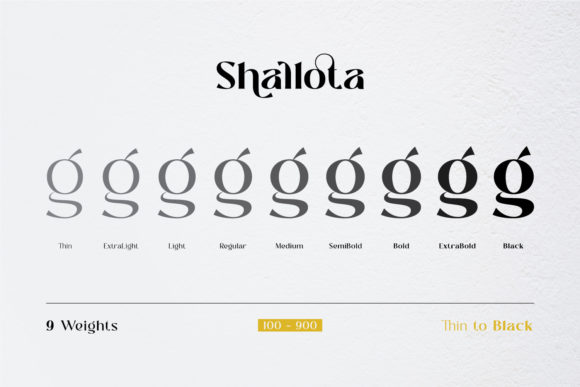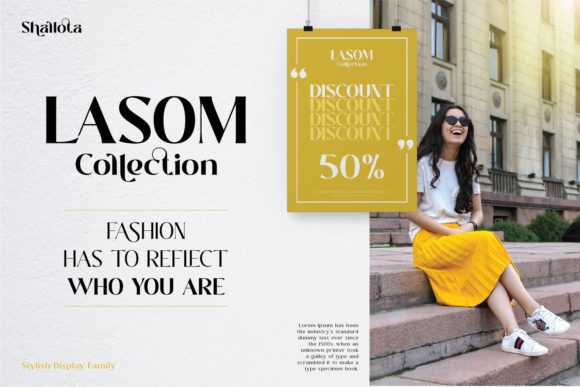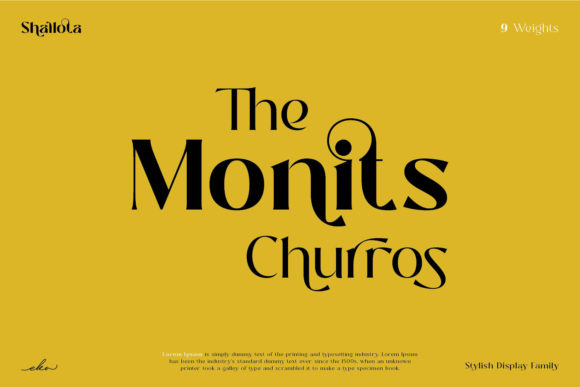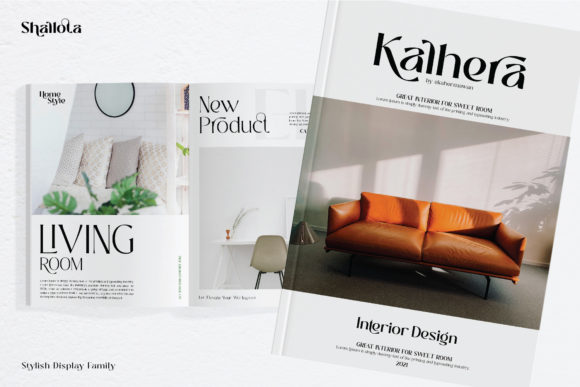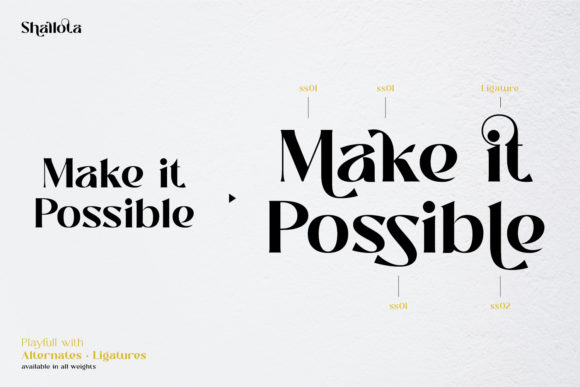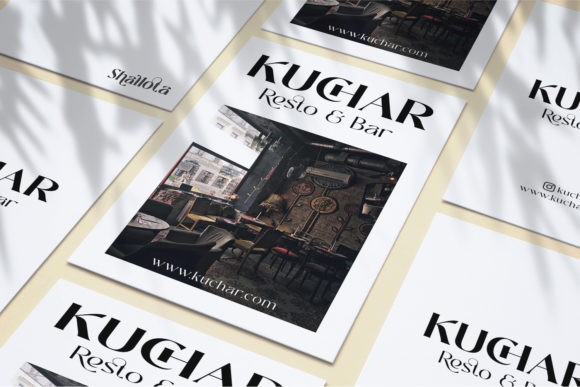
Introduction to Shallota Font
Have you ever been working on a creative project, pouring your heart and soul into it, only to feel like something’s missing? A key element that brings it all together? For designers, finding that perfect font can be the difference between a good design and a great one. And that’s exactly what we’re excited to introduce you to – the Shallota Font.
This elegant, bold, and stylish display font is perfect for fashion branding or editorial designs, offering a smooth vibe that’s sure to captivate your audience. With its high-quality design and transparent background, it’s an ideal design resource for any creative project. The best part? Shallota Font is PUA encoded, making it easy to access all of the glyphs and swashes you need to take your design to the next level.
Key Features of Shallota Font
- High-quality design resource perfect for creative projects with a modern and elegant aesthetic.
- Features a transparent background, making it ideal for use on any color or image, allowing for maximum design flexibility.
- Includes a wide range of characters and glyphs, making it suitable for a variety of creative projects, from logos to typography.
- Designed to be highly legible, making it perfect for use in body text, headings, and titles in any creative project.
Honest Review: Shallota Font
- ✨ Unique and elegant design that’s perfect for creating a sophisticated look
- ✨ Transparent background, making it easy to overlay on different images and designs
- ✨ Highly customizable, allowing for endless possibilities in design
- ⚠️ The font may not be as readable at smaller font sizes, which can be a problem for certain design projects
- ⚠️ Some users may find the font too ornate, which can be overwhelming in certain designs
Overall, I’m really impressed with the Shallota Font. It’s a great addition to any design arsenal, and I’ve already used it in several projects. While it may have some limitations, the benefits far outweigh the drawbacks.
Common Use Cases for Shallota Font
Shallota Font is a versatile design resource that can be used in a variety of creative projects, including:
- Branding and logos.